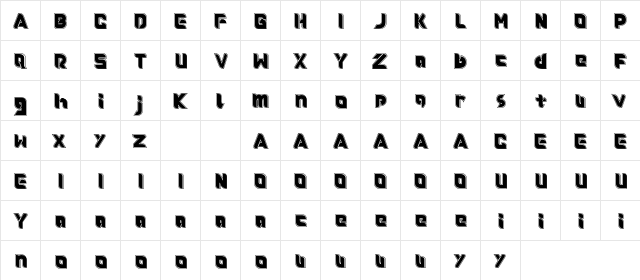
Roundfra DEMO Outline Regular
| Foundry | edric studio |
| Designer | Dhiyaa Naufal Rahmandani |
Design Context for Roundfra DEMO Outline Typeface
Roundfra DEMO Outline brings ornamental detail and strong personality to headlines and identities, where visual impact matters more than quiet functionality.
Font Pairing: Pair with a clean neutral sans-serif for body copy to let Roundfra DEMO Outline's character lead without overwhelming the composition.
Pro Tip: Treat Roundfra DEMO Outline as the centrepiece of your typographic hierarchy. One strong heading set in a decorative face can carry an entire layout.